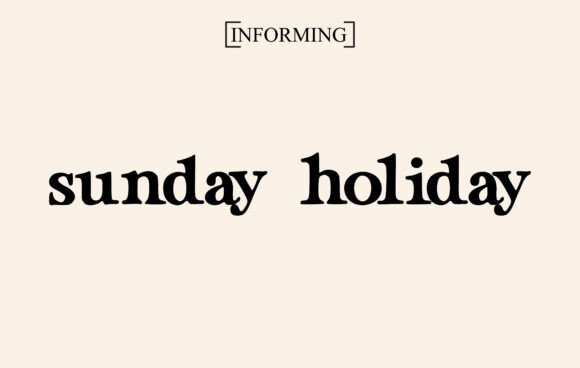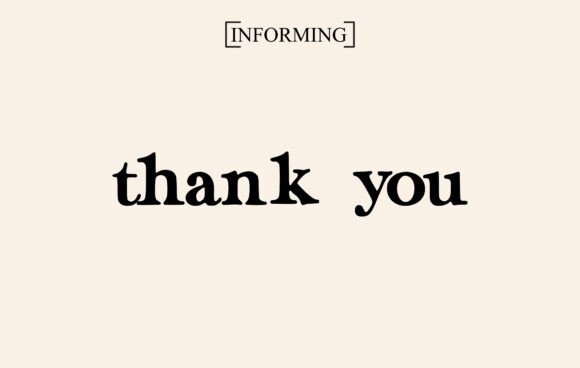
Introducing the Elegance of Gracevine Font: Elevate Your Designs to New Heights
In the vast universe of typography, a font can make or break the aesthetic appeal of a design. For creatives, designers, and crafters, finding the perfect typeface that combines elegance, legibility, and versatility is akin to discovering a gem. This is where the Gracevine Font comes into play, a masterpiece designed to catapult your creative projects to unprecedented levels of sophistication and charm.
The Essence of Gracevine Font
At its core, the Gracevine Font is expertly crafted to capture the hearts of designers and audiences alike. Its design embodies a perfect blend of modernity and timelessness, making it an ideal choice for a wide array of applications. Whether you’re working on magazine headlines, t-shirt designs, social media content, branding materials, wedding invitations, or greeting cards, Gracevine promises to enhance your creations with its unique flair.
Legibility and Versatility
One of the standout features of the Gracevine Font is its exceptional legibility. In a world where readability can often be compromised for style, Gracevine strikes a perfect balance. It looks stunning not just as a title font but also when used for body text, ensuring that your message is conveyed with clarity and elegance. This versatility is a boon for designers who seek a cohesive look across various platforms and mediums.
Applications of Gracevine Font
The applications of the Gracevine Font are as diverse as they are exciting. Here are a few ways you can leverage this beautiful font:
- Magazine Headlines: Create captivating titles that draw readers in with Gracevine’s distinctive charm.
- T-Shirt Designs: Elevate your apparel designs with a font that’s stylish, yet effortlessly readable.
- Social Media: Stand out on social media platforms with Gracevine’s modern and elegant aesthetic.
- Branding: Establish a strong brand identity with a font that’s both memorable and sophisticated.
- Wedding Invitations: Add a touch of elegance and romance to your wedding invitations and stationery.
- Cards: Whether it’s a birthday, anniversary, or holiday card, Gracevine adds a personal touch.
Why Choose Gracevine Font?
In a crowded marketplace, the Gracevine Font stands out for several reasons:
- Unique Design: Its distinctive style ensures that your designs have a unique edge.
- Legibility: Ensures your message is clear, whether it’s used for headings or body text.
- Versatility: Suitable for a wide range of projects, from digital content to print materials.
- Elegance: Adds a touch of sophistication to any design.
The Gracevine Font is more than just a typeface; it’s a design companion that can help bring your creative visions to life. With its elegant design, exceptional legibility, and versatile applications, it’s poised to become a favorite among designers and crafters. Whether you’re looking to make a statement or simply elevate your design game, Gracevine is a choice that promises to deliver. Embrace the elegance of Gracevine Font and watch your creative projects soar to new heights.